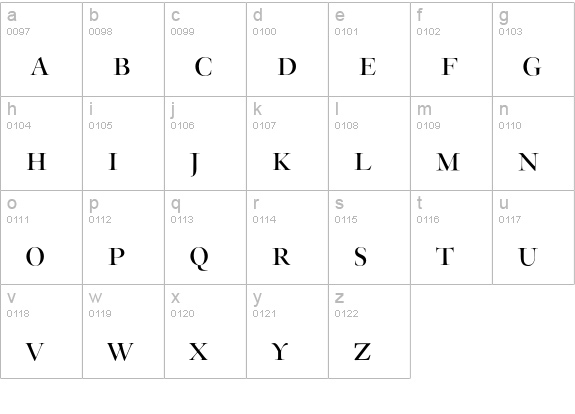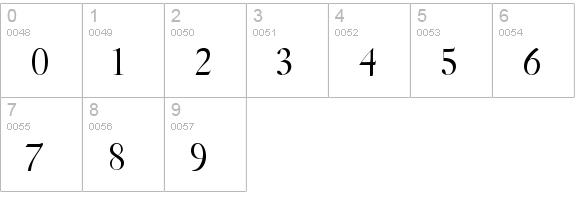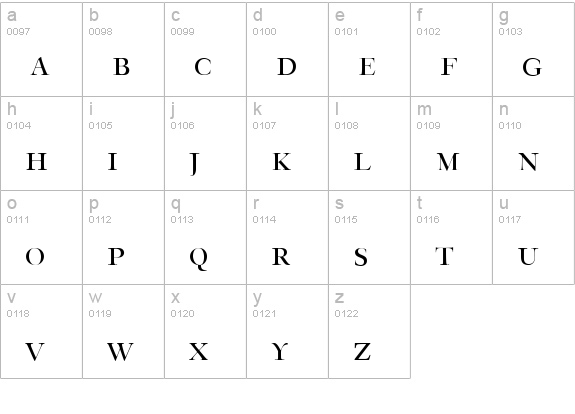
EldoradoDisplay-RomanSC Font Details
EldoradoDisplay-RomanSC is a captivating and elegant font that exudes sophistication and charm. With its unique serifs and classic design, this font is perfect for adding a touch of luxury to any project. The sleek lines and balanced proportions of EldoradoDisplay-RomanSC make it versatile and suitable for a wide range of design applications. What sets EldoradoDisplay-RomanSC apart is that it is not only visually stunning but also freely available for download at FontsMarket.com. This means that you can easily incorporate this beautiful font into your projects without any cost. Whether you're working on a branding project, creating invitations, or designing a website, EldoradoDisplay-RomanSC is sure to elevate your work with its timeless appeal. Download this exquisite font today and add a touch of sophistication to your designs.